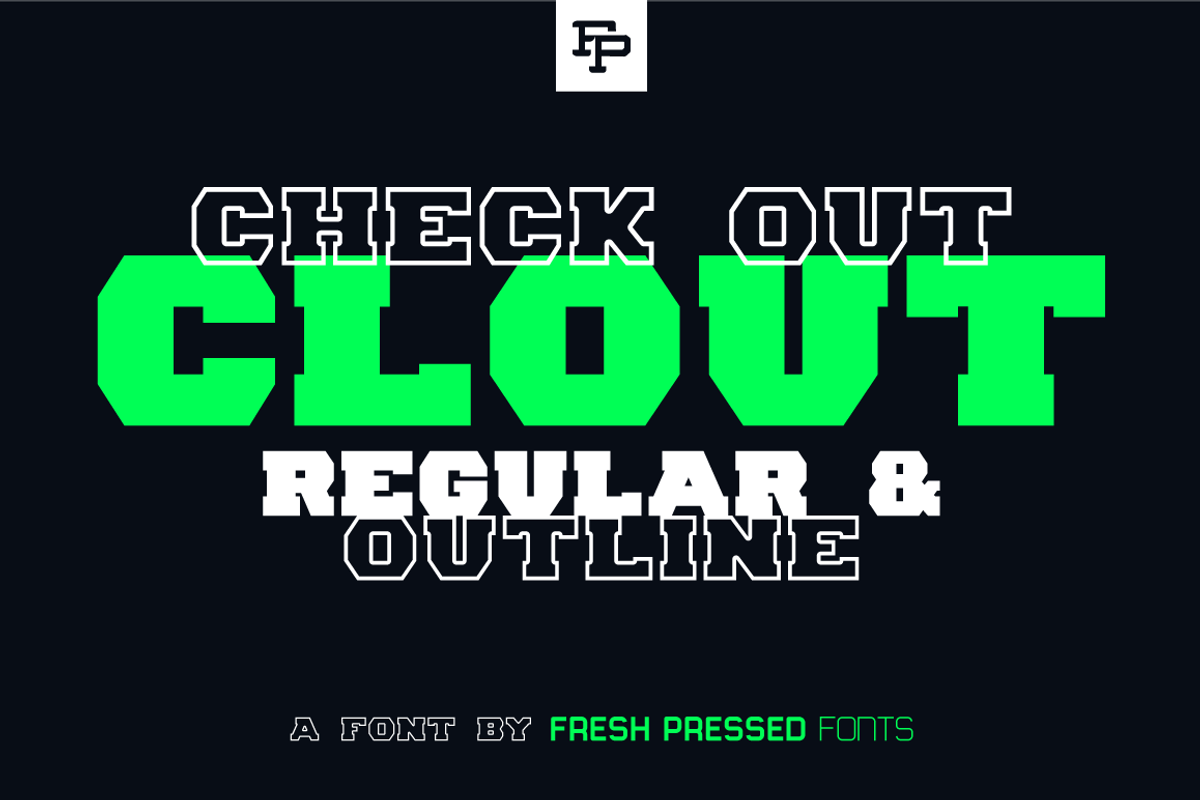
Clout Display Font Free Download is a bold and impactful typeface designed to command attention. With its strong lines, striking presence, and confident style, Clout is perfect for headlines, branding, posters, album covers, and social media graphics that need to stand out and make a statement.
Whether you're working on streetwear designs, music promotions, or high-energy marketing materials, Clout delivers maximum visual power with a modern edge. Its sharp, geometric form ensures clarity while giving your message a fearless, authoritative tone.